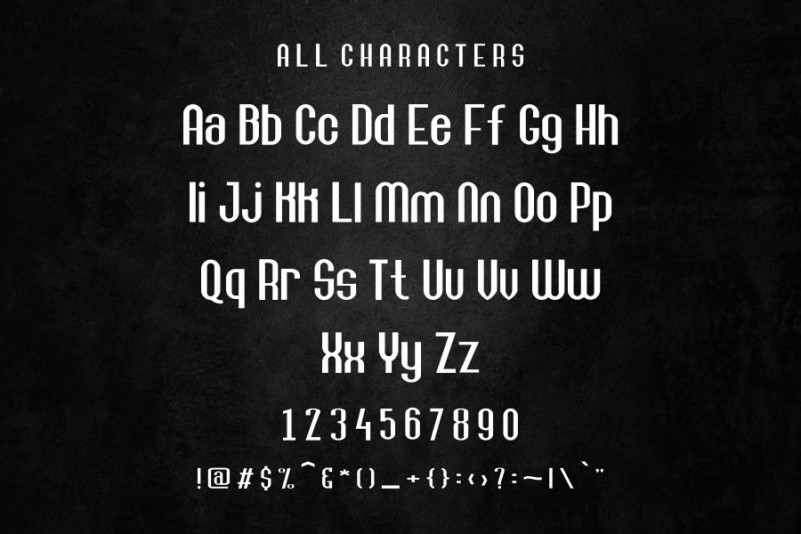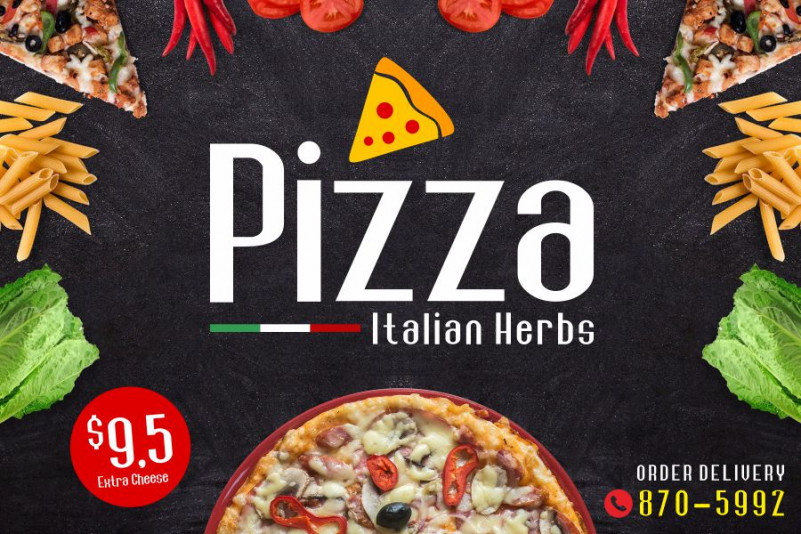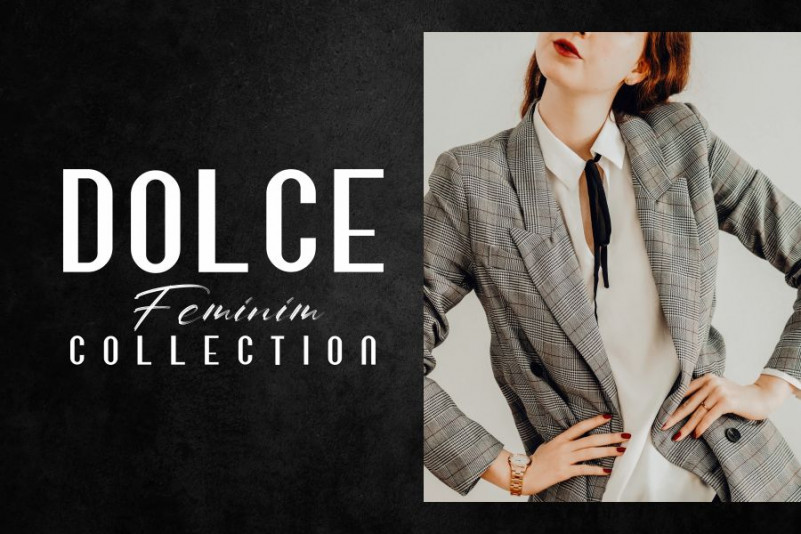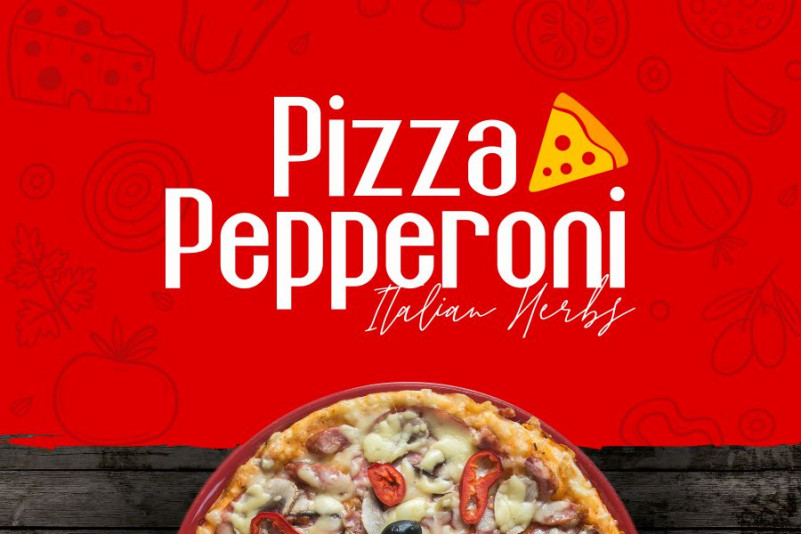
Dalgona Font
Dalgona Sans Serif Font
This is a sweet, soft hand-lettered display font. With its whimsical style, it will elevate a wide range of design projects to the highest level, be it branding, headings, wedding designs, invitations, signatures, logos, labels, and much more!